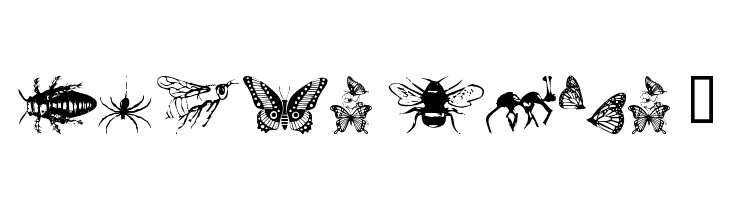
A decorative font made of human figures forming letters and numbers in a Renaissance style.
A playful handwritten font with smooth curves and a casual, friendly vibe.
A bold, textured font with a distressed, vintage appearance.
A fluid and dynamic handwritten font with elongated, slanted letterforms.
A bold, geometric font with a double-line outline, perfect for striking headlines.
A bold, italicized font with a dynamic, striped design for high-energy impact.
A bold, graffiti-inspired font with angular, jagged letterforms.
设计师偏爱 MenschenalphabetPeterFloetner1534, EXPERIMENT BUTTERFLY, As Cute As... Semibold, HAMMOCK-Rough_Home and Sweet Handwrite Regular,因为其造型干净、适用范围广—— 从品牌识别到落地页、海报都能胜任。